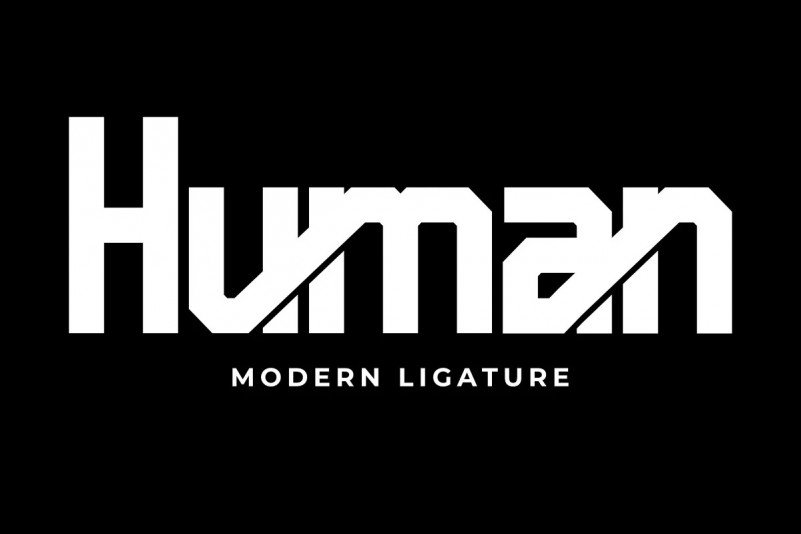
Pro Human Font
This is a unique sans serif typeface created with great taste. It’s designed and shared by andika fez.  Bean fonts are very suitable to be placed on your project such as for weddings, printing, advertising, campaigns, posters, book titles, and so on.